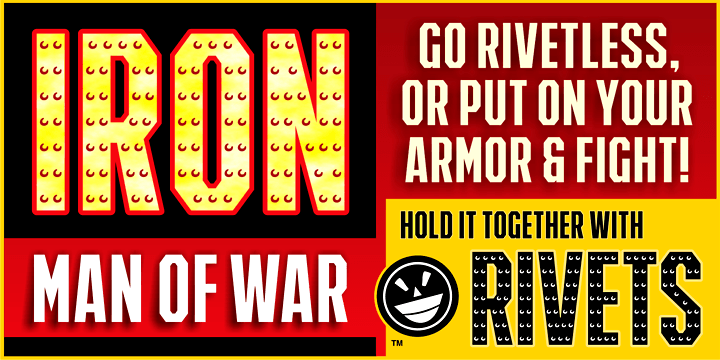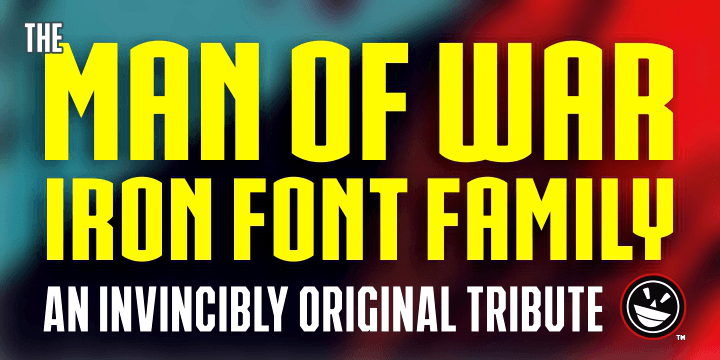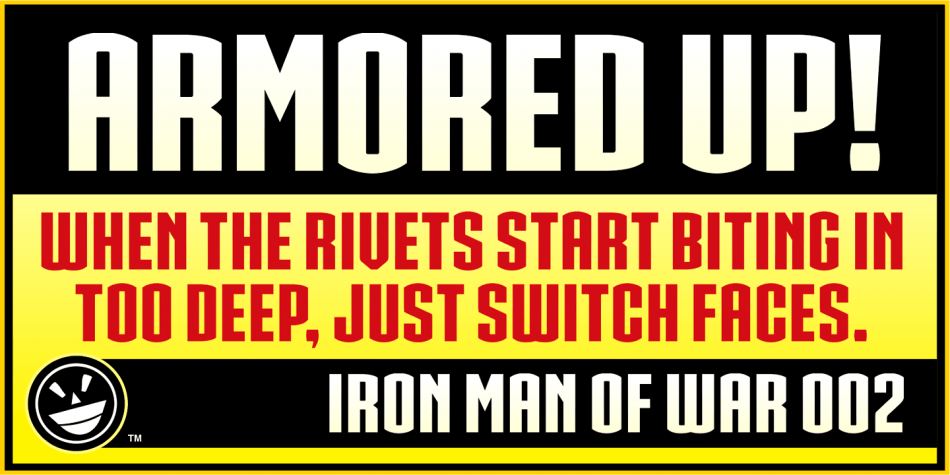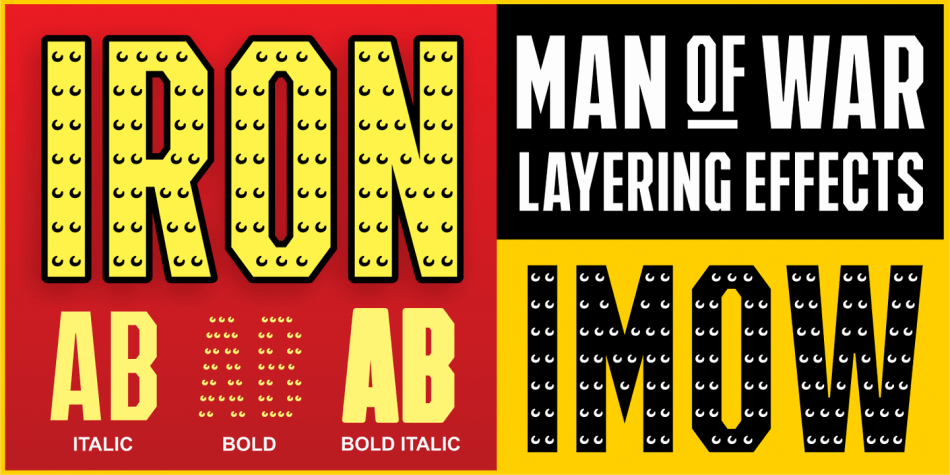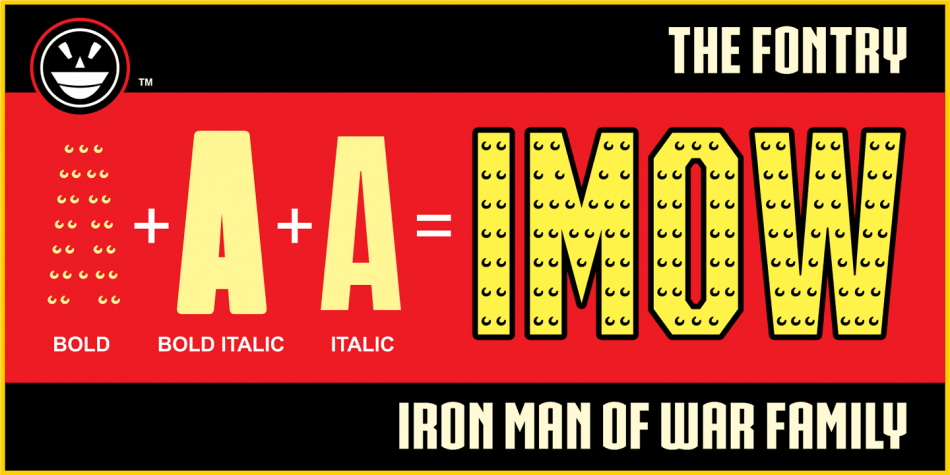
Iron Man of War
Seeking a bold, industrial-inspired font that exudes strength and resilience? Look no further than Iron Man of War (IMOW) - a versatile font family that's designed to anchor your graphics and armor them for battle.
This rugged typeface features four distinct weights, each with its own unique character. From the plain, unadorned versions to the heavily detailed, permanently bolted-in-place designs, IMOW offers an unparalleled level of customization and control. Whether you're looking to add a touch of industrial chic or a dash of militaristic might to your design, IMOW has got you covered.
But that's not all - the commercial version of IMOW also features style-menu based layering effects, allowing you to take your designs to the next level. With IMOW, you can create complex, multi-layered compositions that are sure to make a statement and grab attention.
Whether you're working on a project that requires a touch of industrial grit or a dash of futuristic flair, Iron Man of War is the perfect font for the job. So why settle for ordinary when you can have extraordinary? Choose IMOW today and unleash your inner designer - armor up and enter the fray with confidence!